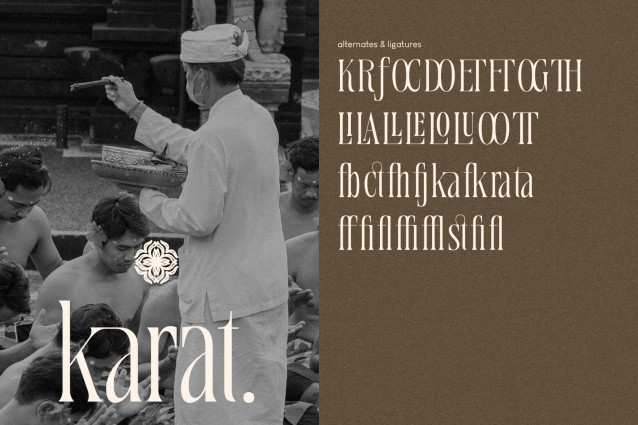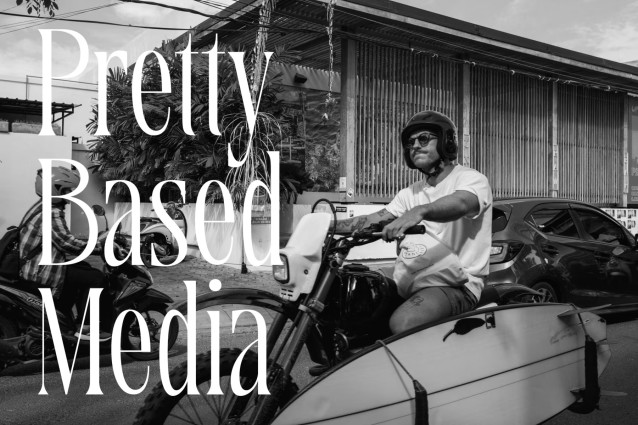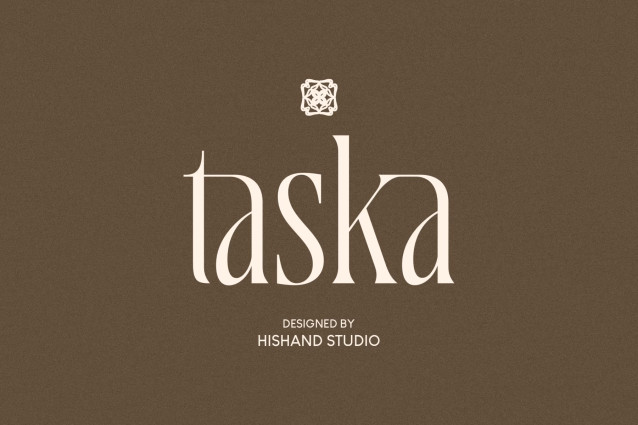
Taska Serif Display Font
Taska is a serif display font crafted for brands that speak in quiet confidence. Every curve and stroke carries a refined elegance, balancing sharp contrast with soft, flowing terminals that give each letter a sense of timeless sophistication. It draws from classic serif structure while introducing a modern sense of proportion, making it feel both established and current.
Designed with high contrast strokes and delicate serifs, Taska brings a luxurious, editorial feel to any project. It’s the kind of typeface that turns a simple logotype into a statement, perfect for fashion houses, beauty brands, boutique hotels, and premium packaging where every detail matters. The thin hairlines paired with bold main strokes create visual tension that draws the eye without overwhelming the composition.
Taska performs beautifully at large sizes, making it ideal for logos, wordmarks, magazine headers, and brand identities that need to feel exclusive and polished. Its balanced proportions and graceful curves ensure legibility without losing personality, even in the most minimal designs. The letterforms hold their elegance whether set tight in a wordmark or spaced out across a headline, giving designers flexibility across formats.
Beyond logos, Taska suits editorial layouts, invitation suites, packaging labels, and signage where a refined first impression counts. Its serifs are sharp enough to photograph well on print materials, yet soft enough to keep a warm, approachable character. Pair it with a clean sans serif for body text and it anchors any brand system with quiet authority.
From fashion labels to perfume brands to high end product lines, Taska delivers the aesthetic weight and timeless charm your brand deserves. For a new identity or a full brand refresh, Taska offers a dependable foundation for visual storytelling that feels curated rather than trend chasing. It gives designers room to build a complete brand voice around it, carrying the same quiet authority from primary logotype down to supporting typography